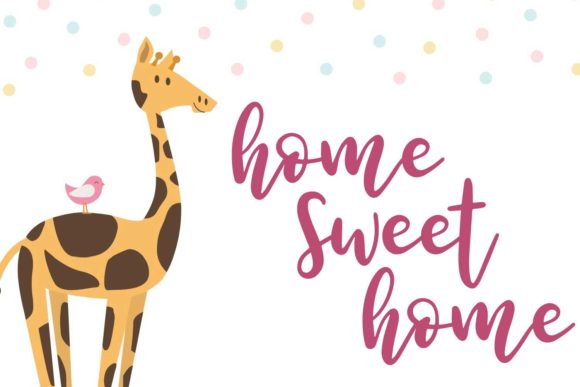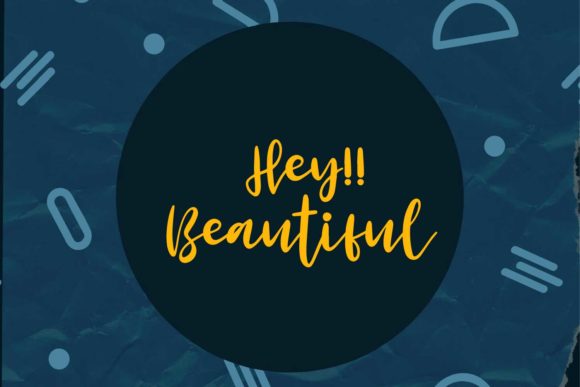
Introduction to Rateliskai Font
Rateliskai is a playful and modern handwritten font.
Fall in love with its incredibly versatile style and use it to create gorgeous wedding invitations, beautiful stationary art, eye-catching social media posts, and much more .
Rateliskai Font offers exceptional quality and versatility, making it a valuable addition to your design toolkit. Whether you’re creating for personal projects or commercial use, Rateliskai Font delivers professional results.